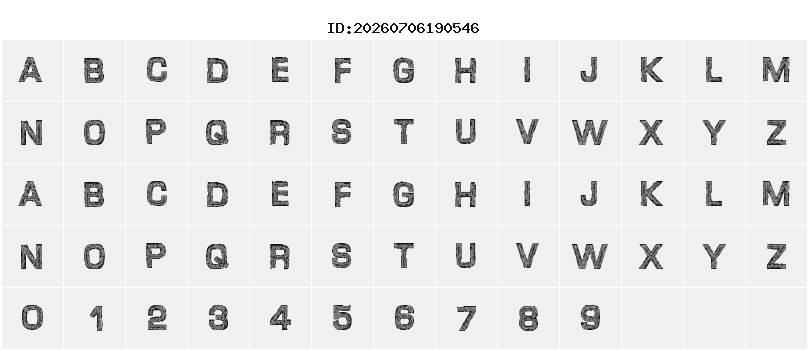
Desgarvuda Preview
• Designer: kaiserzharkhan
About Desgarvuda.ttf
Desgarvuda.ttf is a modern, elegant sans-serif font designed for ultimate readability and visual harmony. Perfect for branding, headlines, web design, and print materials.